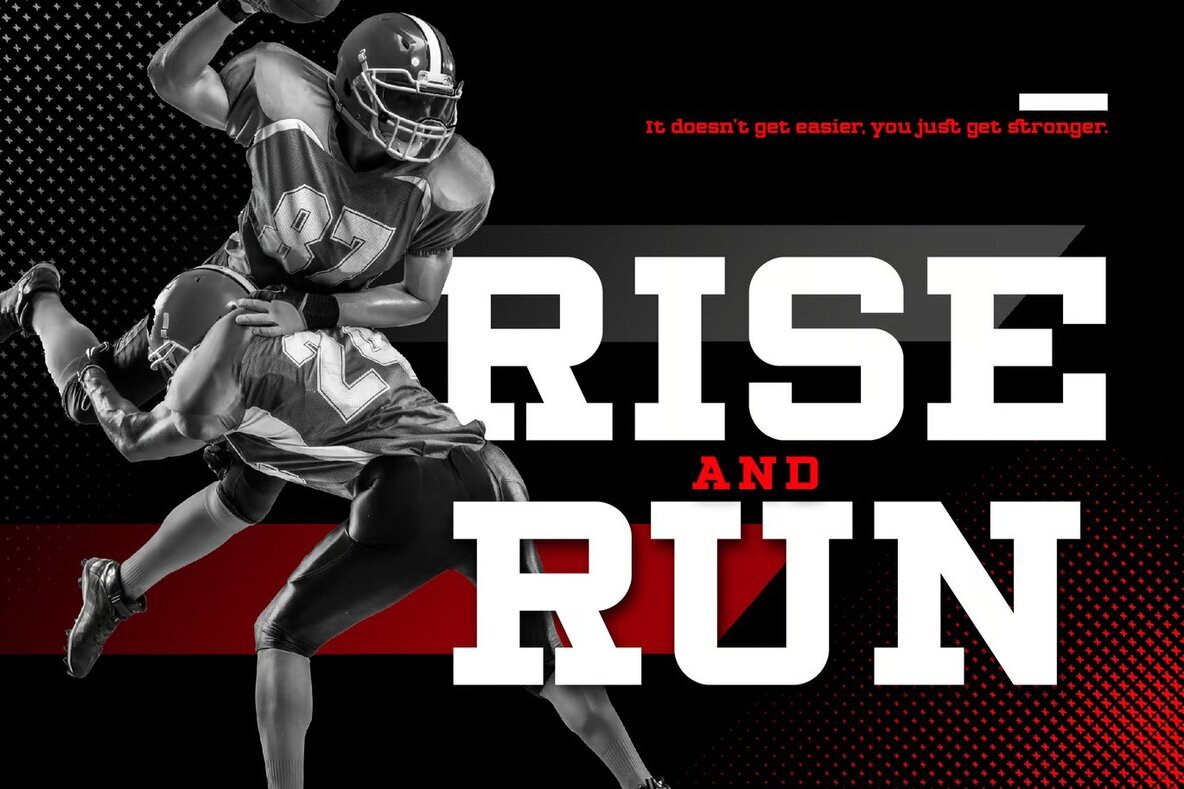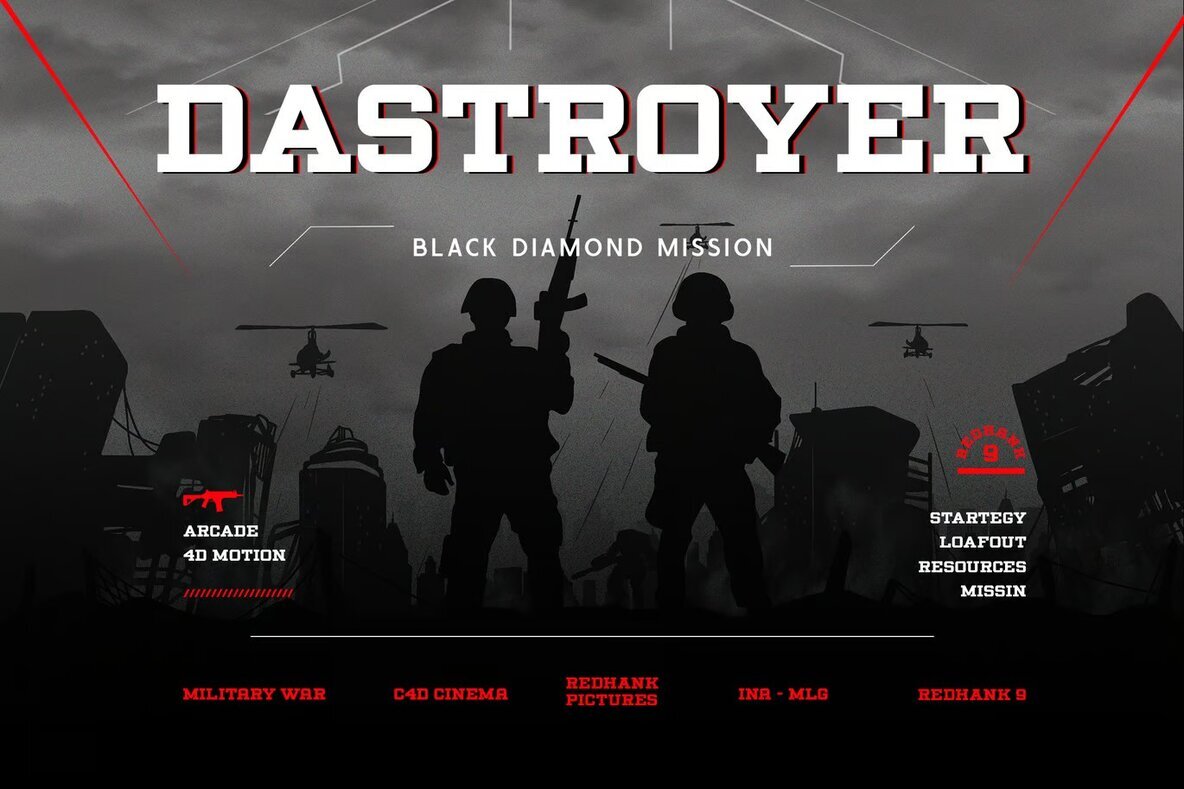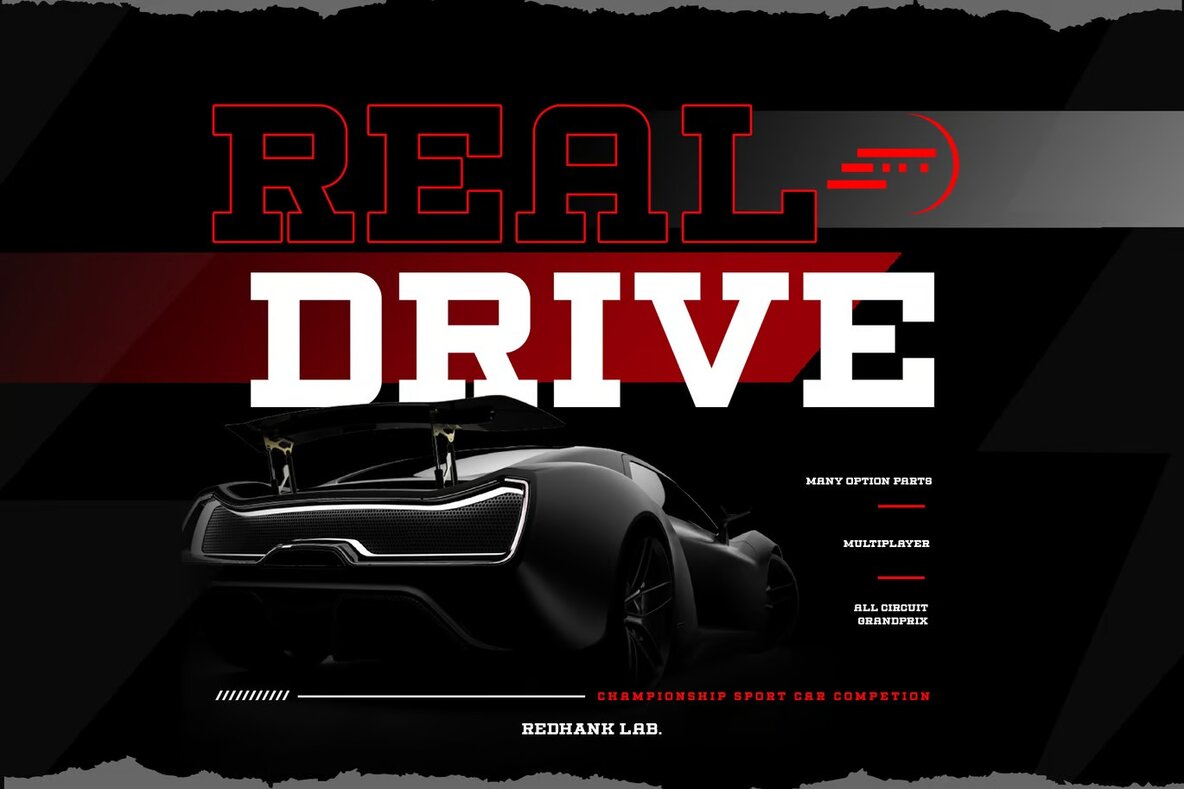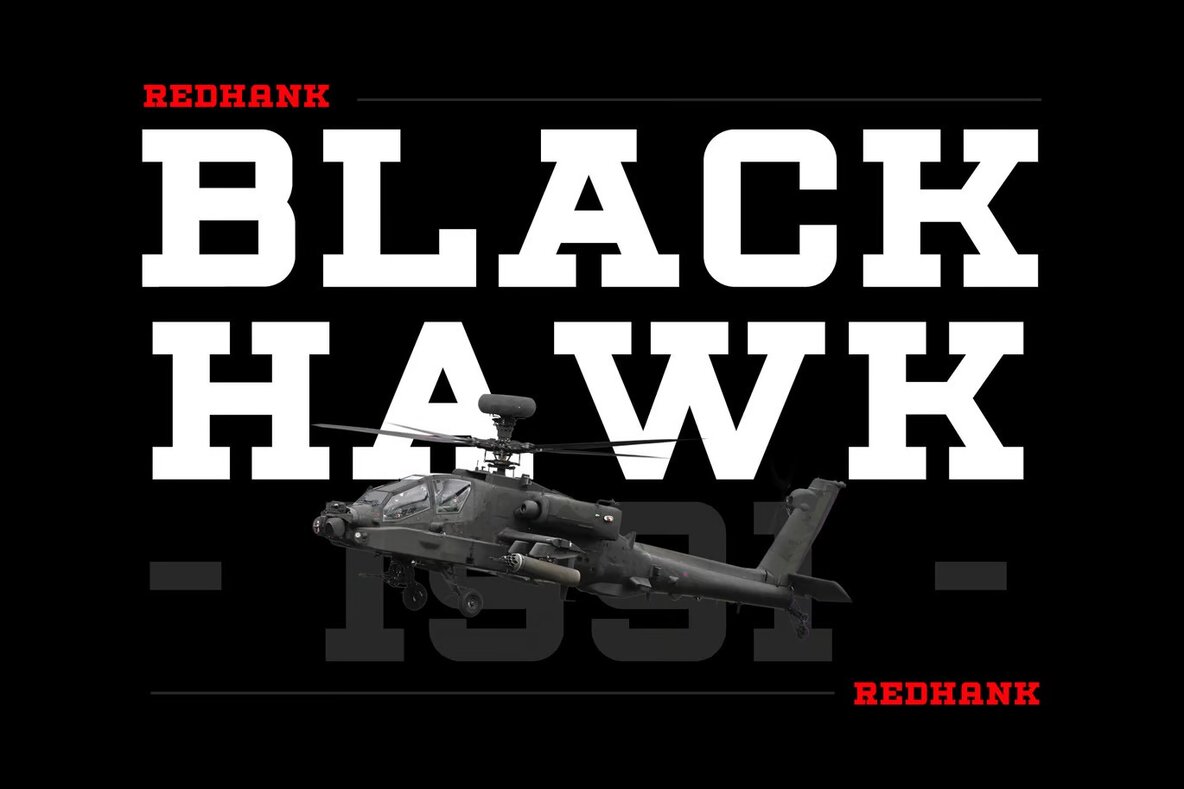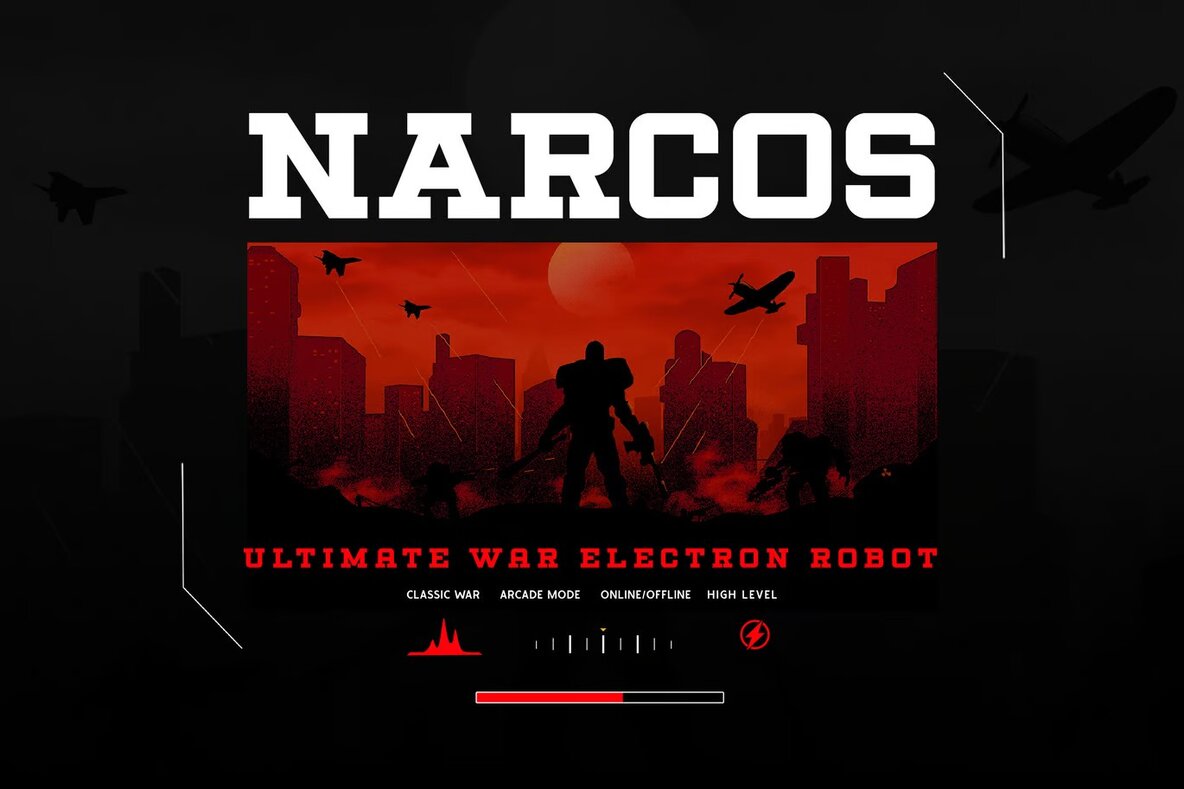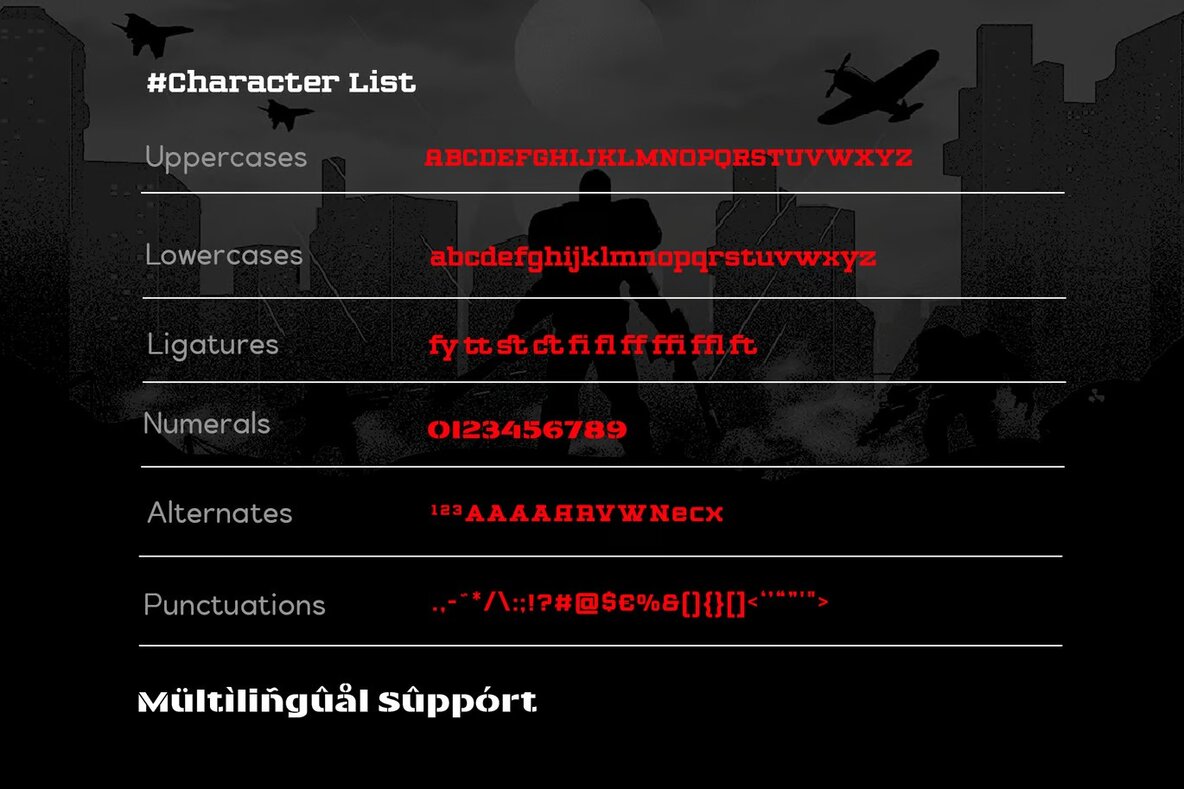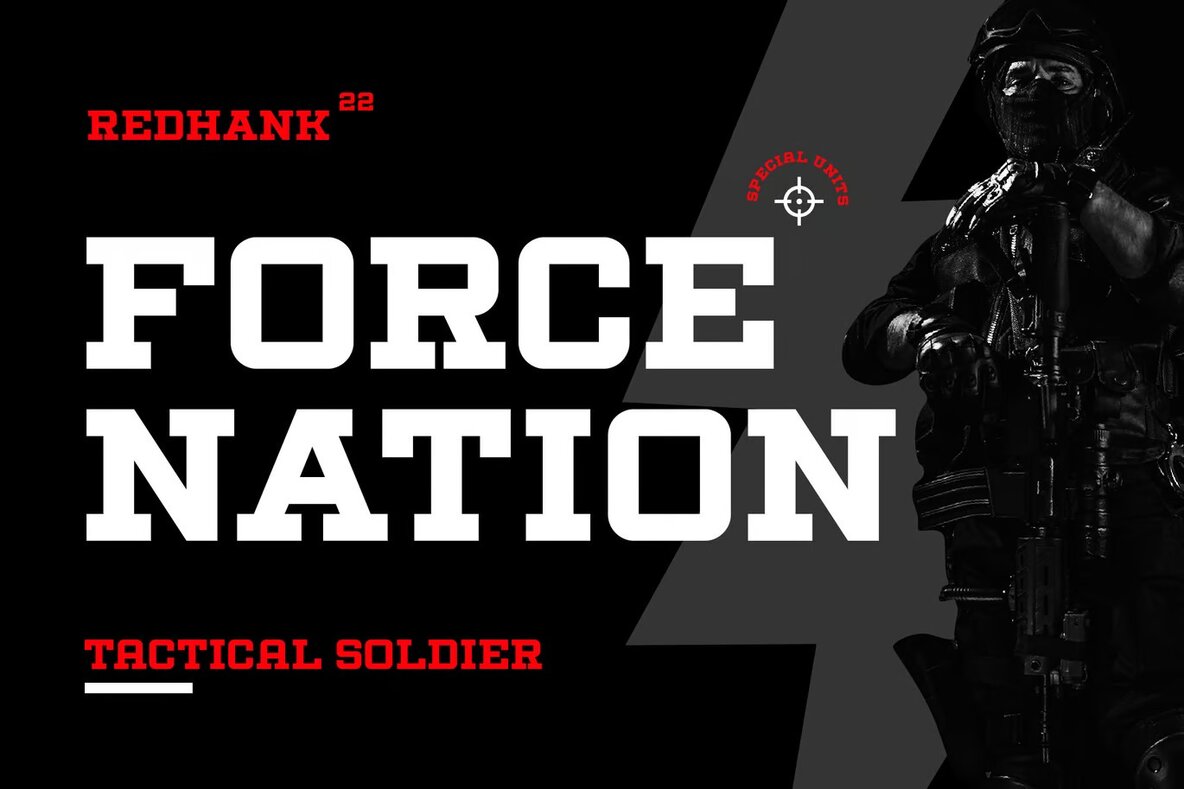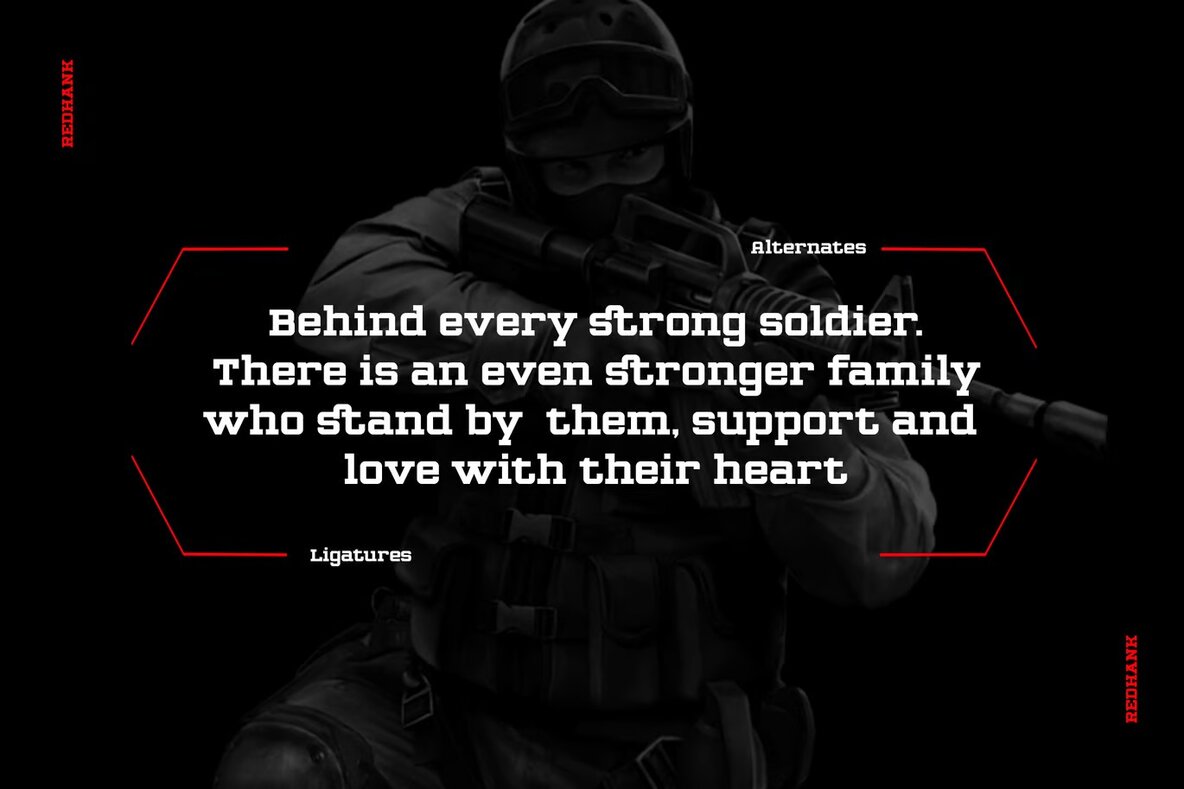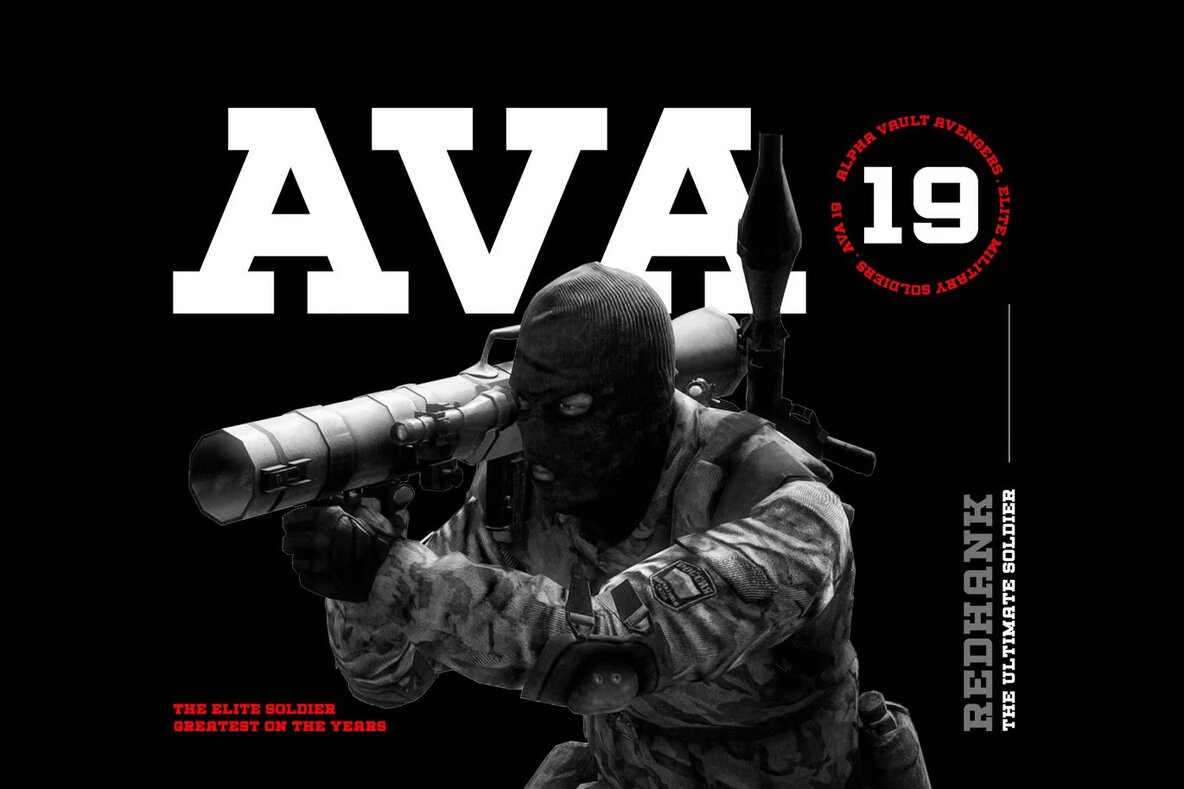
Redhank Font
Redhank Regular
Redhank Slab Serif Font is a bold, modern expanded typeface designed to make a powerful statement. Its robust and dynamic structure is perfect for a wide range of projects, particularly those that aim to capture the bold spirit of military aesthetics or the high-energy world of racing sports. The font's strong lines and contemporary style make it an ideal choice for logo branding and editorial design. Additionally, it's a great fit for creating eye-catching content in sectors like the esport game industry or music-related graphics.
This versatile font seamlessly adapts to various creative needs, from crafting striking stationery and sport designs to enhancing 80s retro-themed projects. Its adaptability extends to modern advertising designs and art quotes, providing a fresh, impactful look. Redhank also excels in personalizing special event materials like card invitations and book covers, making it a go-to option for designers looking to add flair to their projects. Whether for high-energy supercar branding or stylish blog design, this slab serif font ensures your work stands out with confidence and clarity.